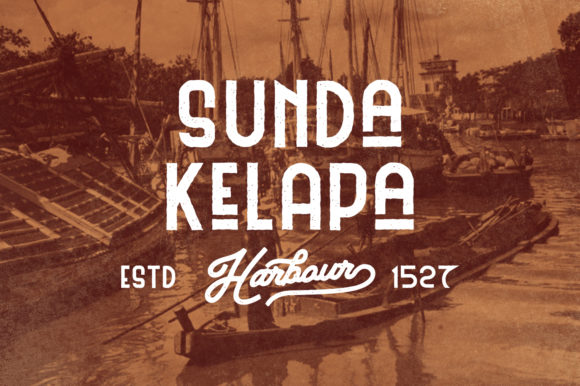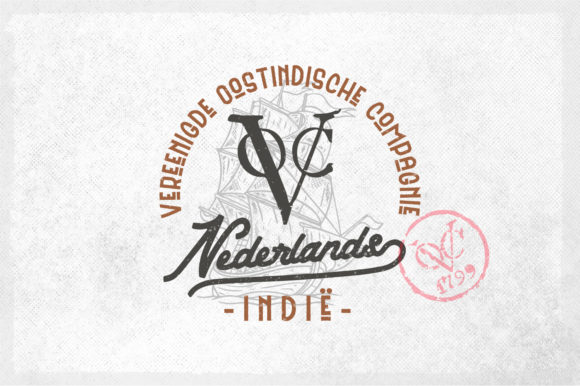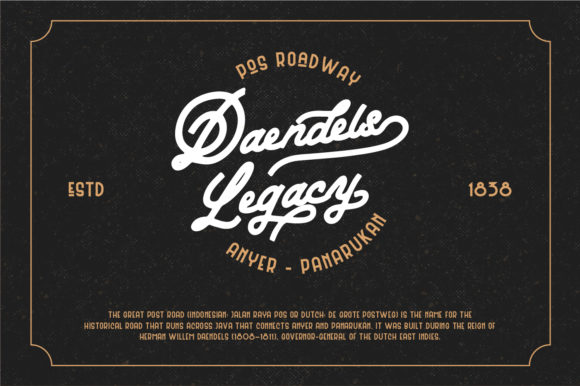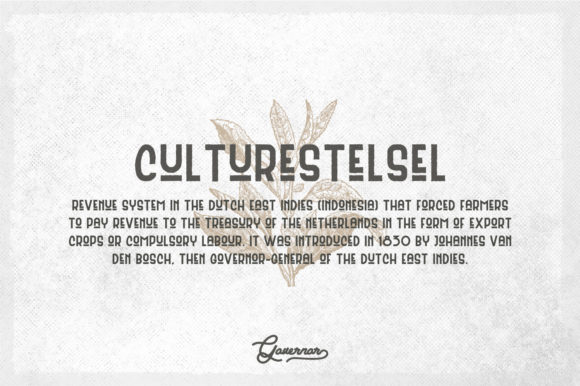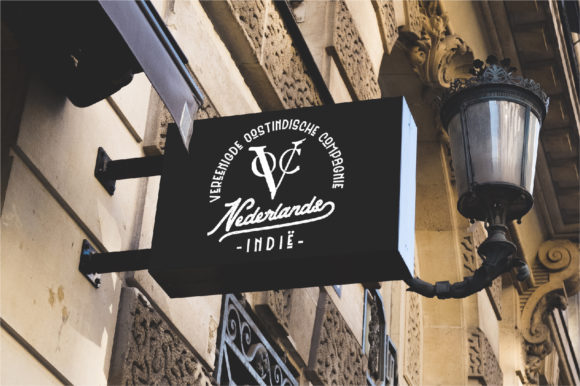
Introduction to Batavia Duo Font
As a designer, have you ever found yourself stuck in a creative rut, searching for the perfect font to give your project that extra oomph? You know the feeling – scrolling through font libraries, trying out different combinations, and still not quite hitting the mark. But what if you stumbled upon a font that perfectly captured the essence of a bygone era, transporting your design to a world of nostalgia and charm?
Enter the Batavia Duo Font, a beautifully crafted duo of script and sans fonts that will transport your creative projects to the streets of Batavia, a city in the Dutch East Indies that’s now known as Jakarta. This stunning font duo is the perfect design resource for any project that requires a touch of vintage elegance, from product packaging and labels to lettering and logotype, and everything in between.
- High-quality design resource featuring a unique, modern aesthetic.
- Available in two distinct styles, allowing for a range of creative expressions and applications.
Honest Review: Batavia Duo Font
I recently had the chance to try out the Batavia Duo Font for a creative project, and I must say, it’s been a game-changer. This free download has quickly become one of my go-to design resources.
- What works well: ✨ The font is incredibly versatile, with a range of styles and weights that can be used to create both modern and classic designs.
- ✨ The high quality of the font is evident, even when used on a transparent background.
- ✨ The font is perfect for a variety of creative projects, from branding and marketing materials to editorial and print design.
However, I did encounter a few limitations. ⚠️ The font can be a bit tricky to navigate, especially for those who are new to font design. Additionally, some of the styles and weights can be a bit inconsistent, which can make it difficult to achieve a cohesive look.
Overall, I’m really impressed with the Batavia Duo Font. While it may have a few limitations, its high quality and versatility make it a valuable addition to any designer’s toolkit.
Tips for Getting the Most Out of the Batavia Duo Font
To get the most out of the Batavia Duo Font, be sure to:
- Use the font with a transparent background for a clean and modern look.
- Experiment with different font sizes and styles to add visual interest to your design.
- Combine the Batavia Duo Font with other high-quality design resources for a cohesive and professional look.
The Batavia Duo Font is perfect for a variety of creative projects, including:
- Social media graphics and advertising.
- Presentations and reports.
- Branding and marketing materials.
Compared to Batavia Duo Font, Lato has a more minimalist approach, making it ideal for projects that require simplicity and elegance. While Batavia Duo Font has a more playful and vintage feel, Lato’s modern design makes it a great alternative for those seeking a more contemporary look.
Compared to Batavia Duo Font, Open Sans has a more neutral and adaptable design, making it perfect for projects that require a clean and easy-to-read font. While Batavia Duo Font has a more unique and vintage feel, Open Sans’s simplicity makes it a great alternative for those seeking a more timeless look.